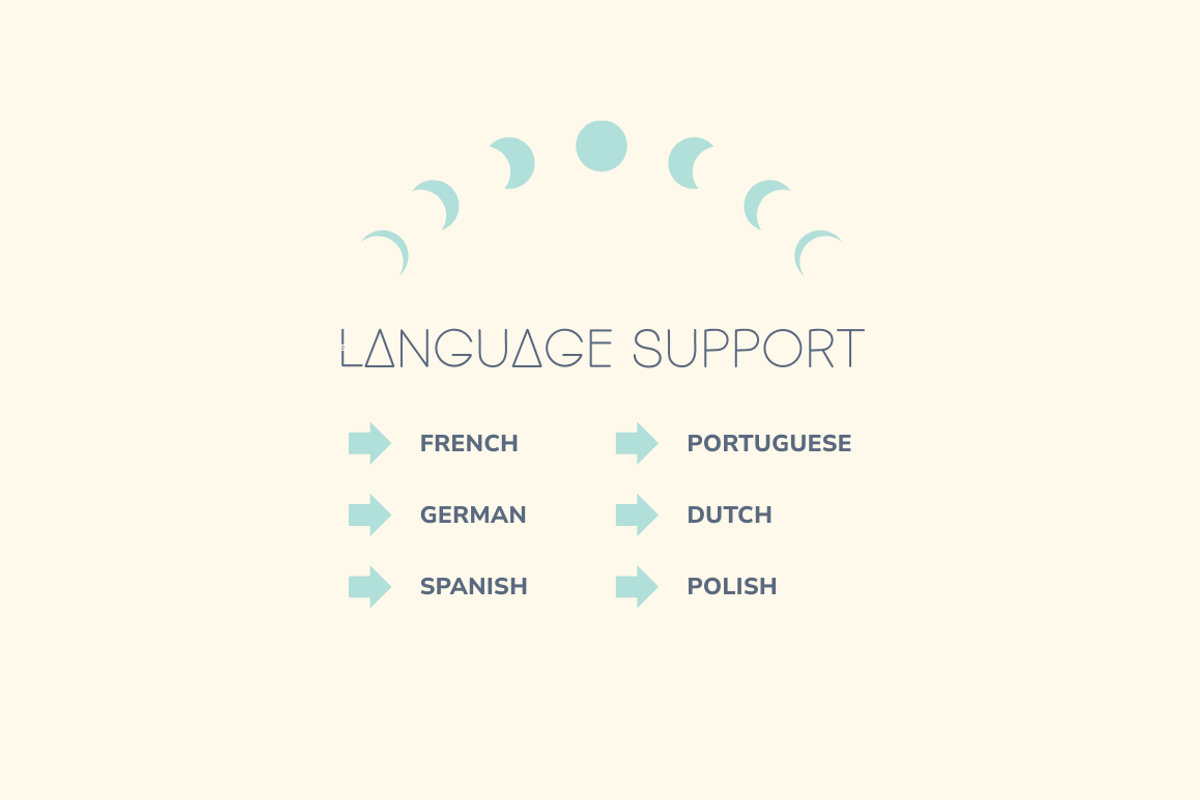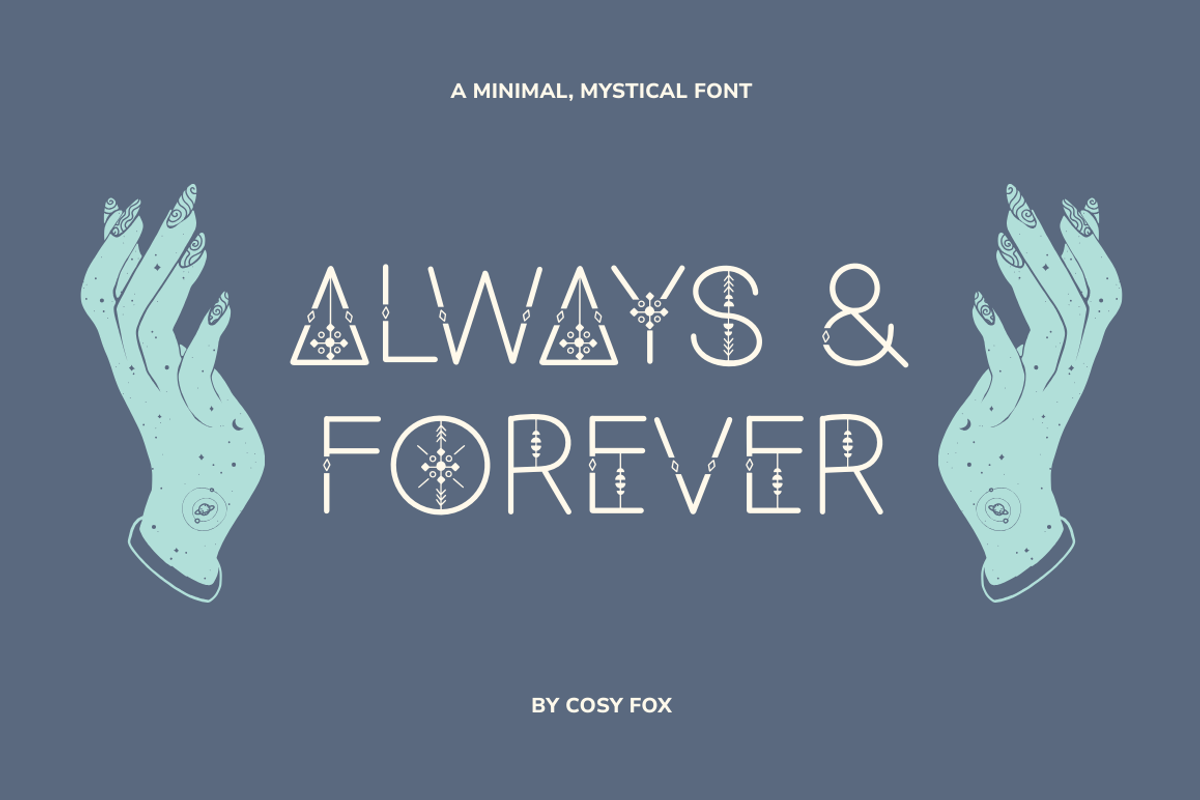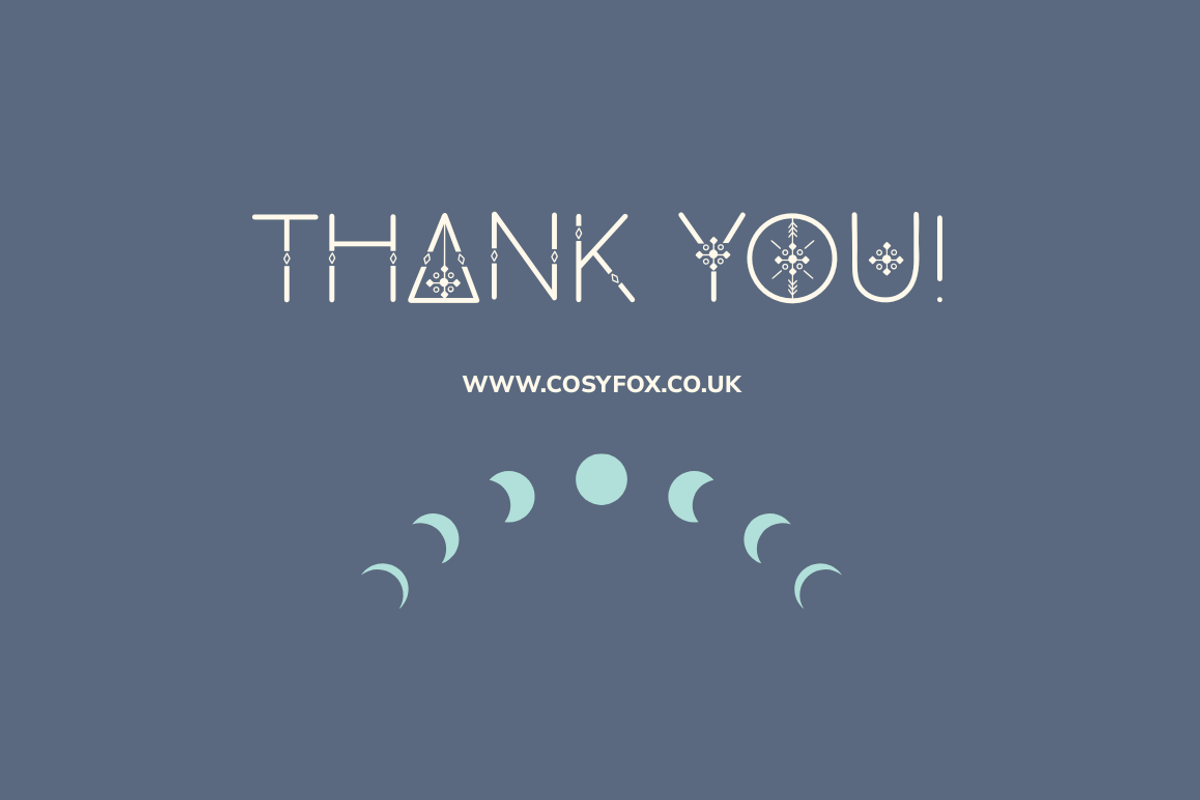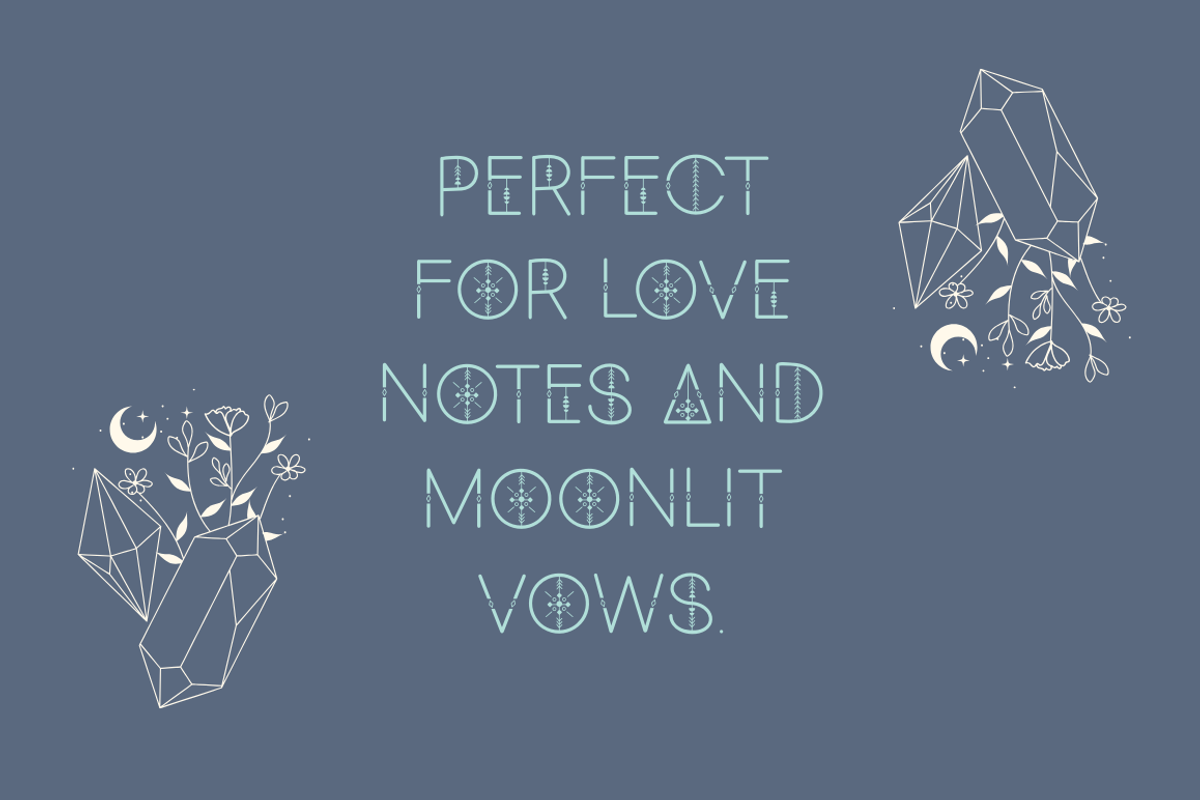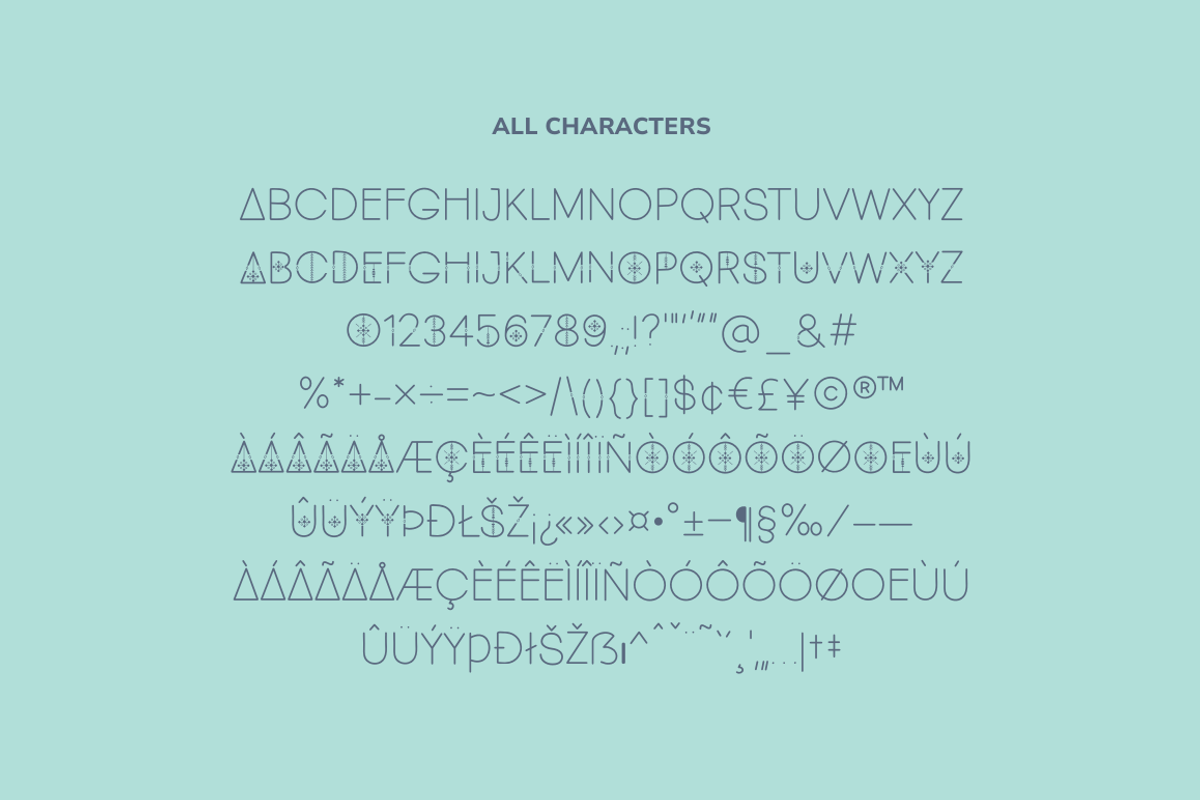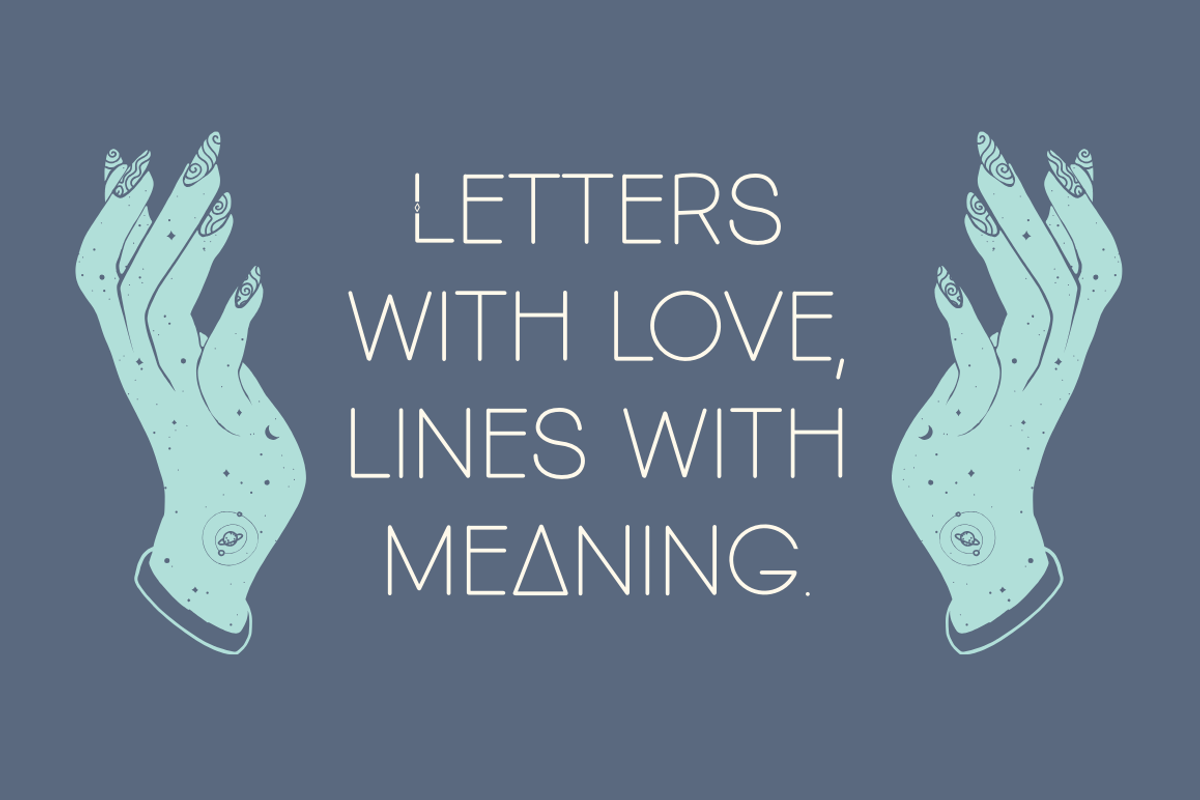
Always and Forever Font
Always & Forever is a romantic, decorative monoline font with geometric details and symbolic charm. Designed for elegant projects that want to feel magical and meaningful, it’s ideal for weddings, vow books, brand identities, and anything that calls for soft beauty with a modern twist.
Delicate lines and handcrafted shapes come together to create a font that’s simple but striking—perfect for dreamy creatives, spiritual brands, or heartfelt gifts. Fully compatible with Canva, Procreate, and all your favourite design tools.